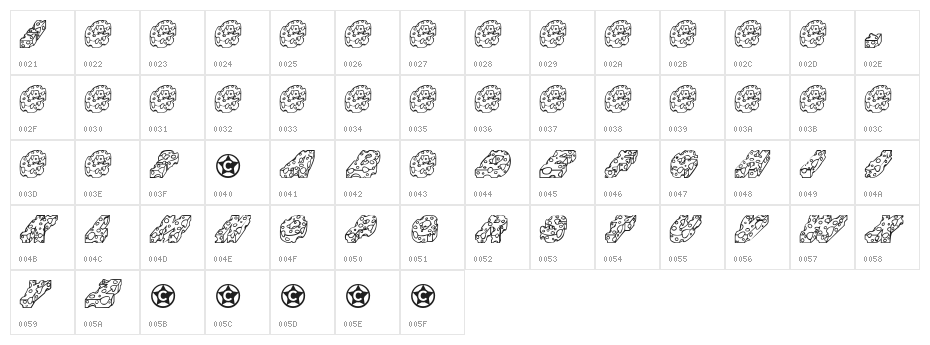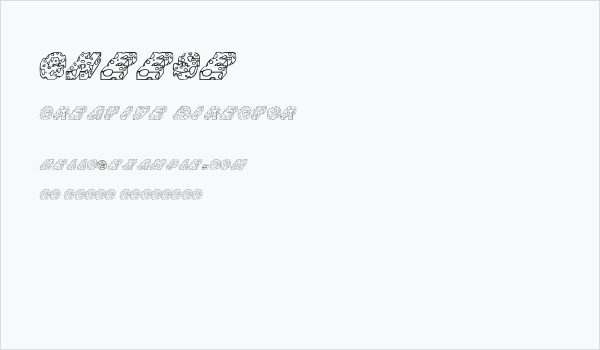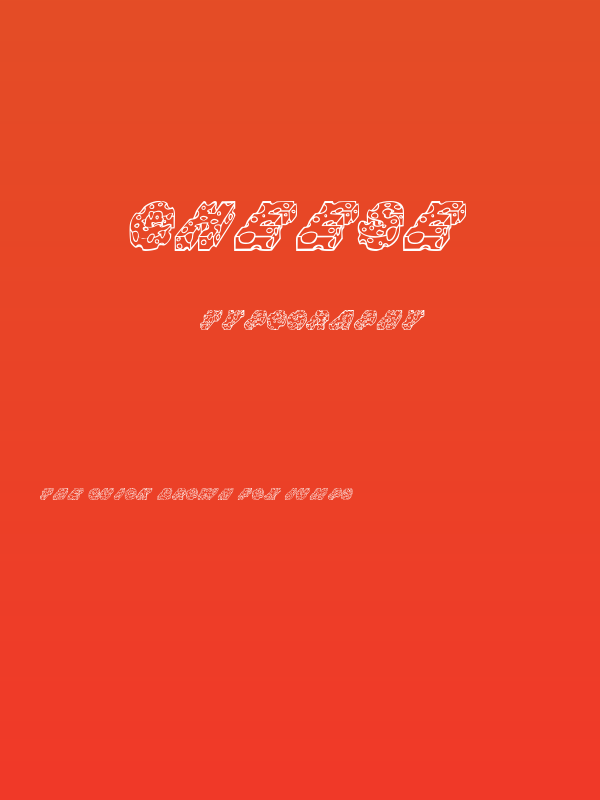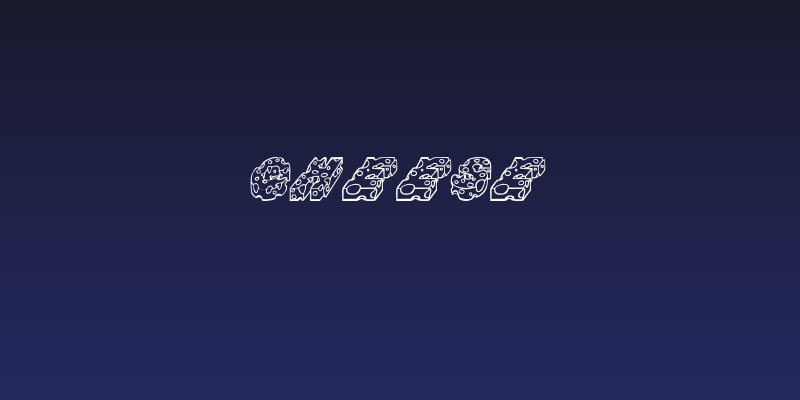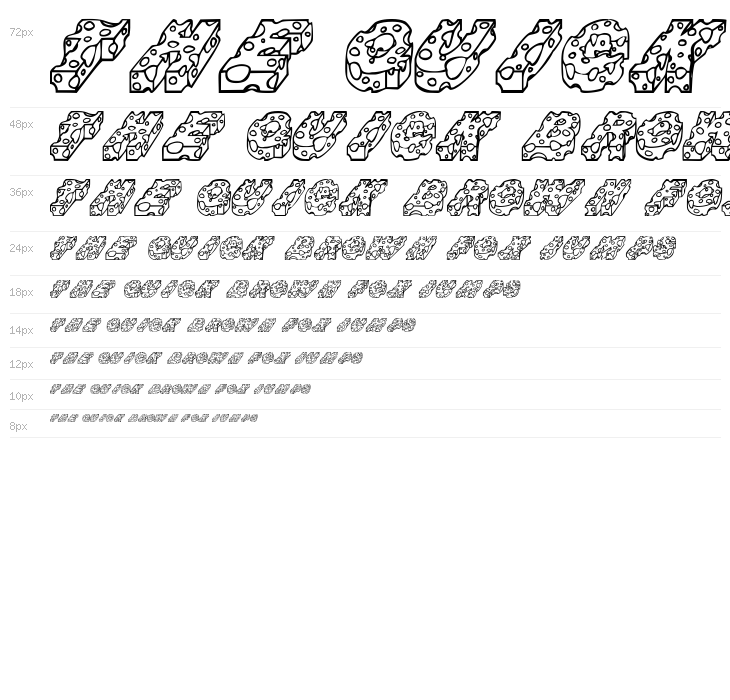
CHEESE Font
CHEESE Description
This playful and whimsical font features a cheese-inspired design, with each letter appearing as if carved from a block of Swiss cheese. The letters are bold and three-dimensional, with irregular holes and a textured surface that mimic the appearance of cheese. The font is highly decorative and eye-catching, making it ideal for creative and fun projects. The uppercase and lowercase letters maintain a consistent style, while the numbers and special characters are equally detailed, ensuring a cohesive look across all text elements.
Proposed ProjectsIdeal for food-related branding, children's book covers, playful posters, and novelty packaging.